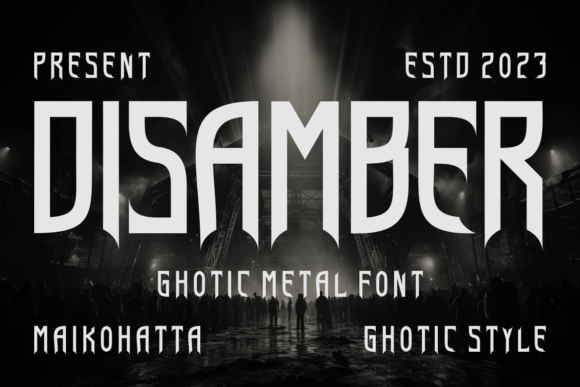
Enter the realm of Disamber Gothic Metal, a font family born from the fusion of ornate Gothic elements and a contemporary design aesthetic. This masterful creation by maikofarazhatta is not merely a collection of letters; it is an artistic expression that will lend your designs an aura of darkness, mystery, and unwavering strength.
Dispense with the ordinary and embrace the extraordinary with Disamber Gothic Metal. Its upright and bold stance commands attention, while the captivating interplay of curved lines and sharp angles creates a visual symphony that will leave your audience spellbound. This font family is a testament to the power of contrast, seamlessly blending the elegance of Gothic artistry with the boldness of modern design.
Unleash your creativity and transport your designs to a realm of mystery and intrigue. Disamber Gothic Metal is the ultimate choice for logos, posters, album covers, and any project that demands an air of darkness and allure. Its versatility extends to branding, social media graphics, and even web design, making it the perfect companion for designers seeking to make a lasting impression.
With Disamber Gothic Metal, you hold the key to unlocking a world of visual intrigue. Let your imagination run wild and explore the endless possibilities that await you. Embrace the captivating allure of this font family and watch as your designs transcend the ordinary and ascend to the realm of the extraordinary.